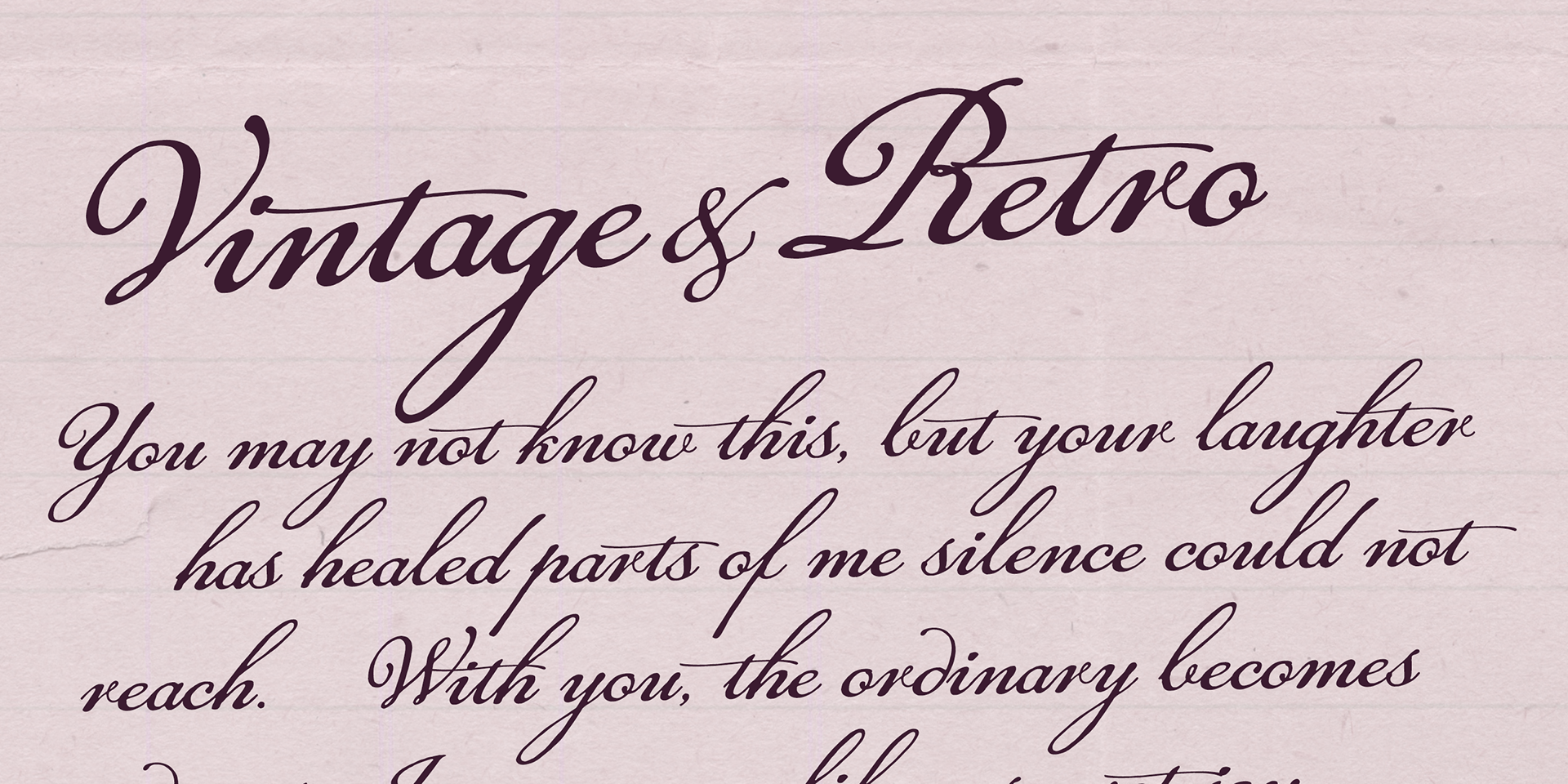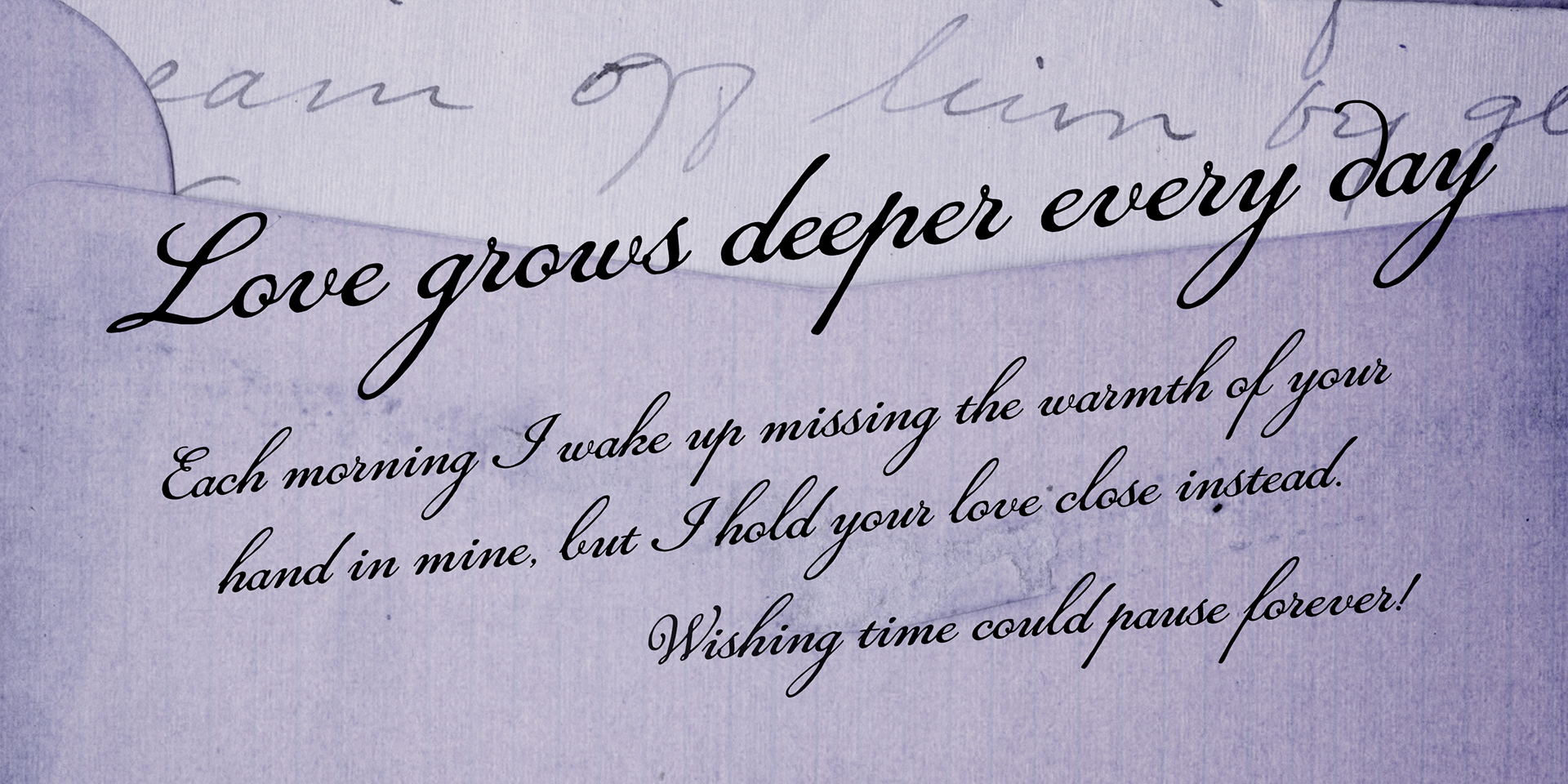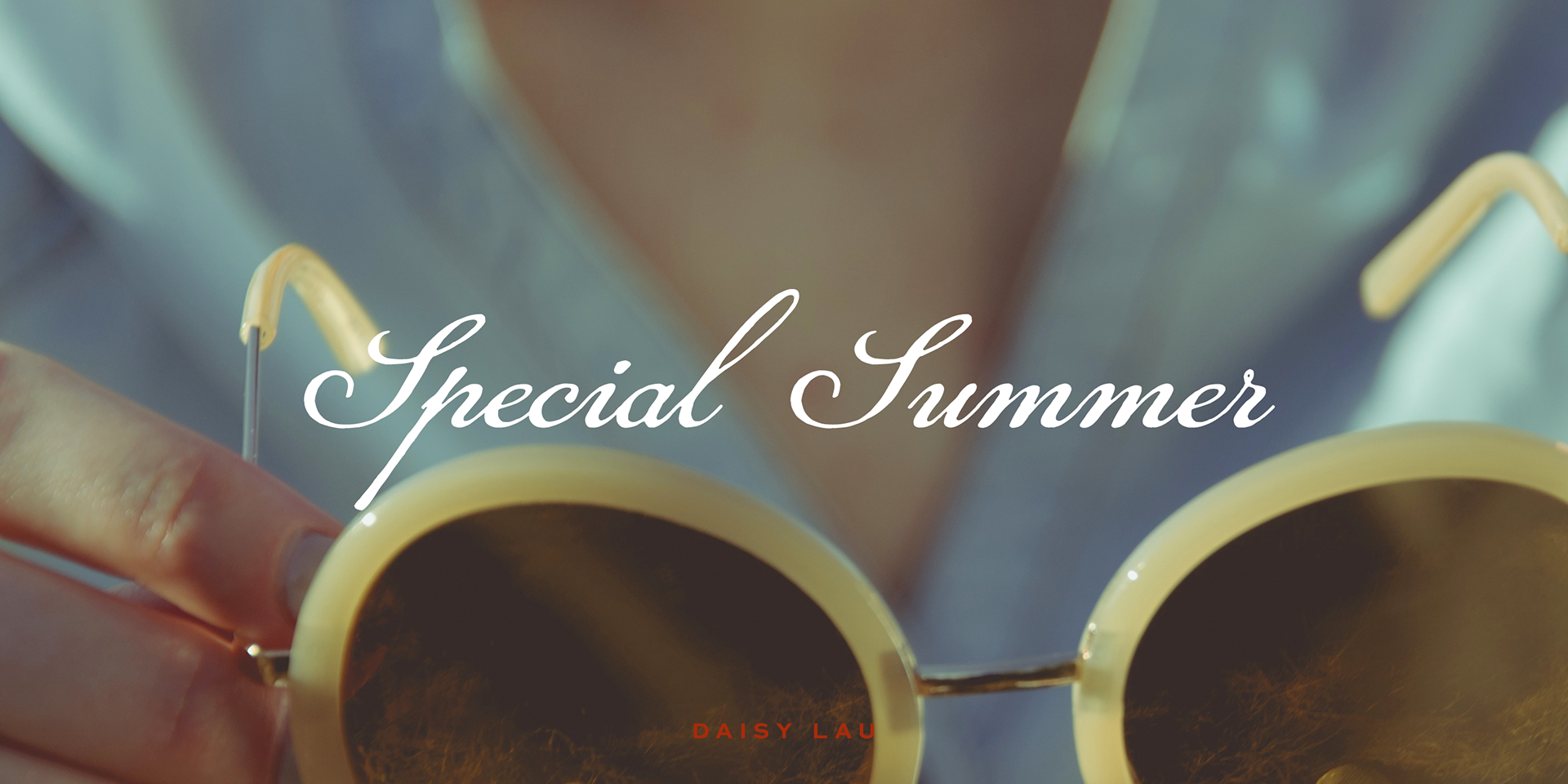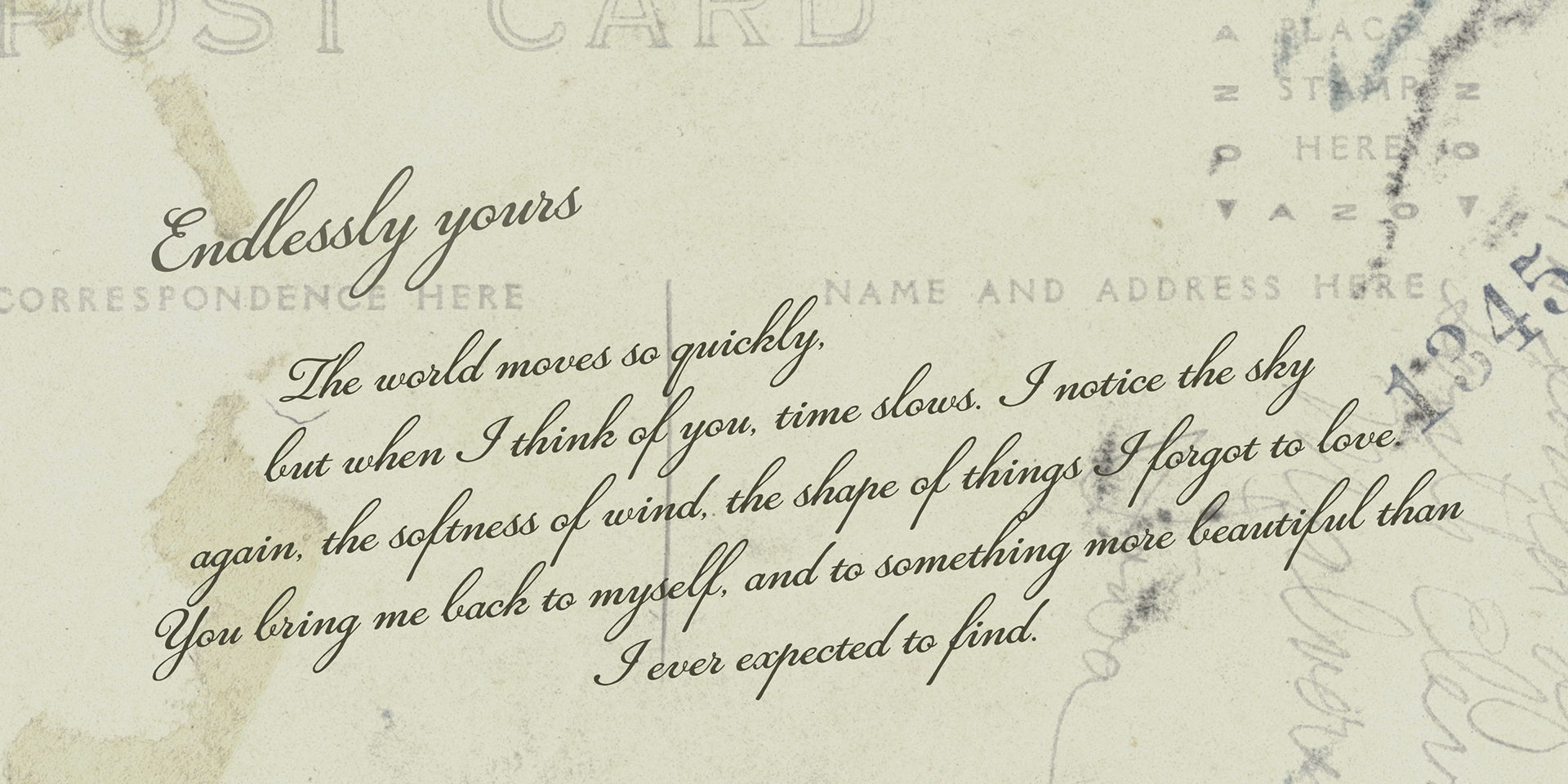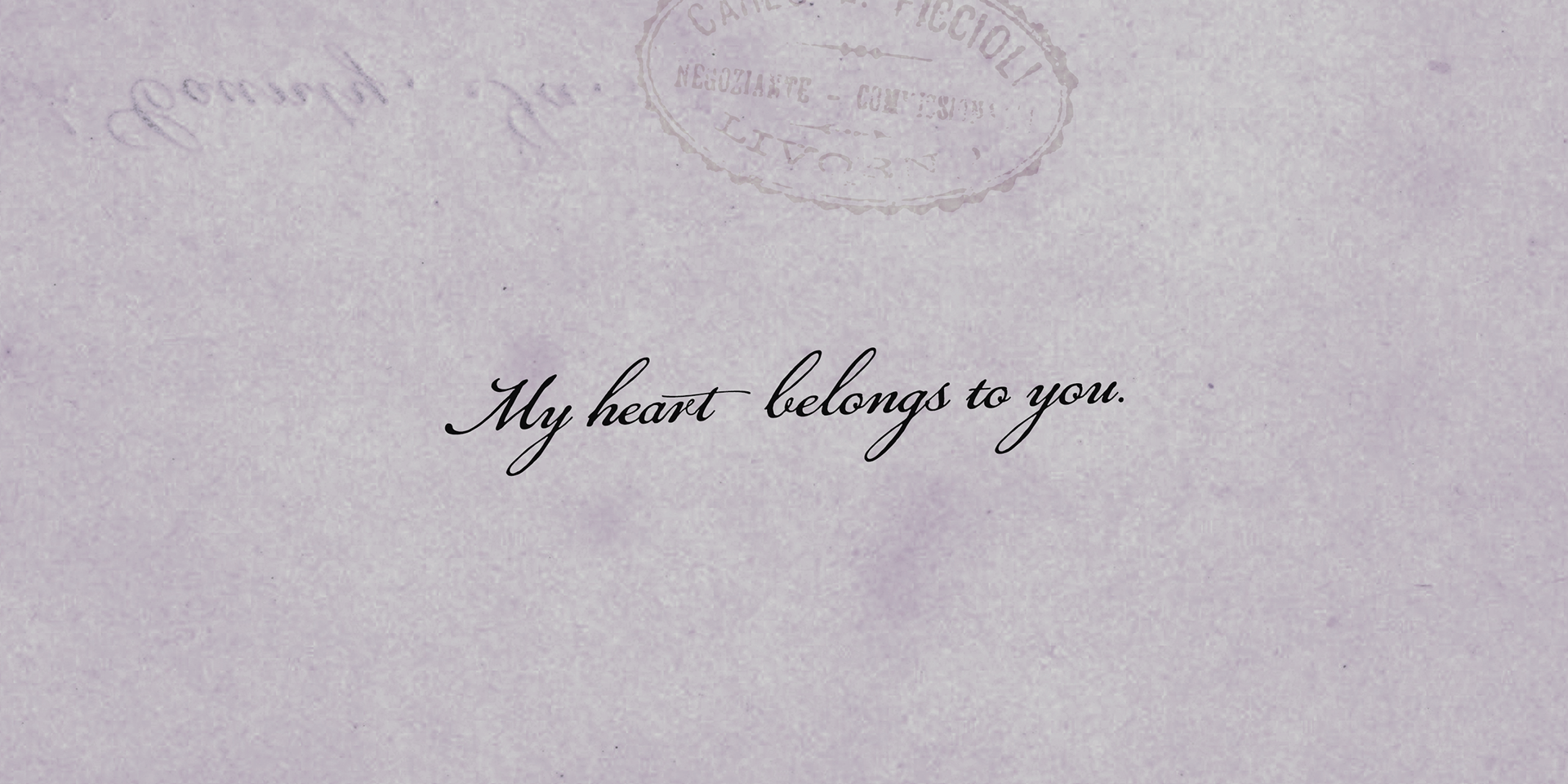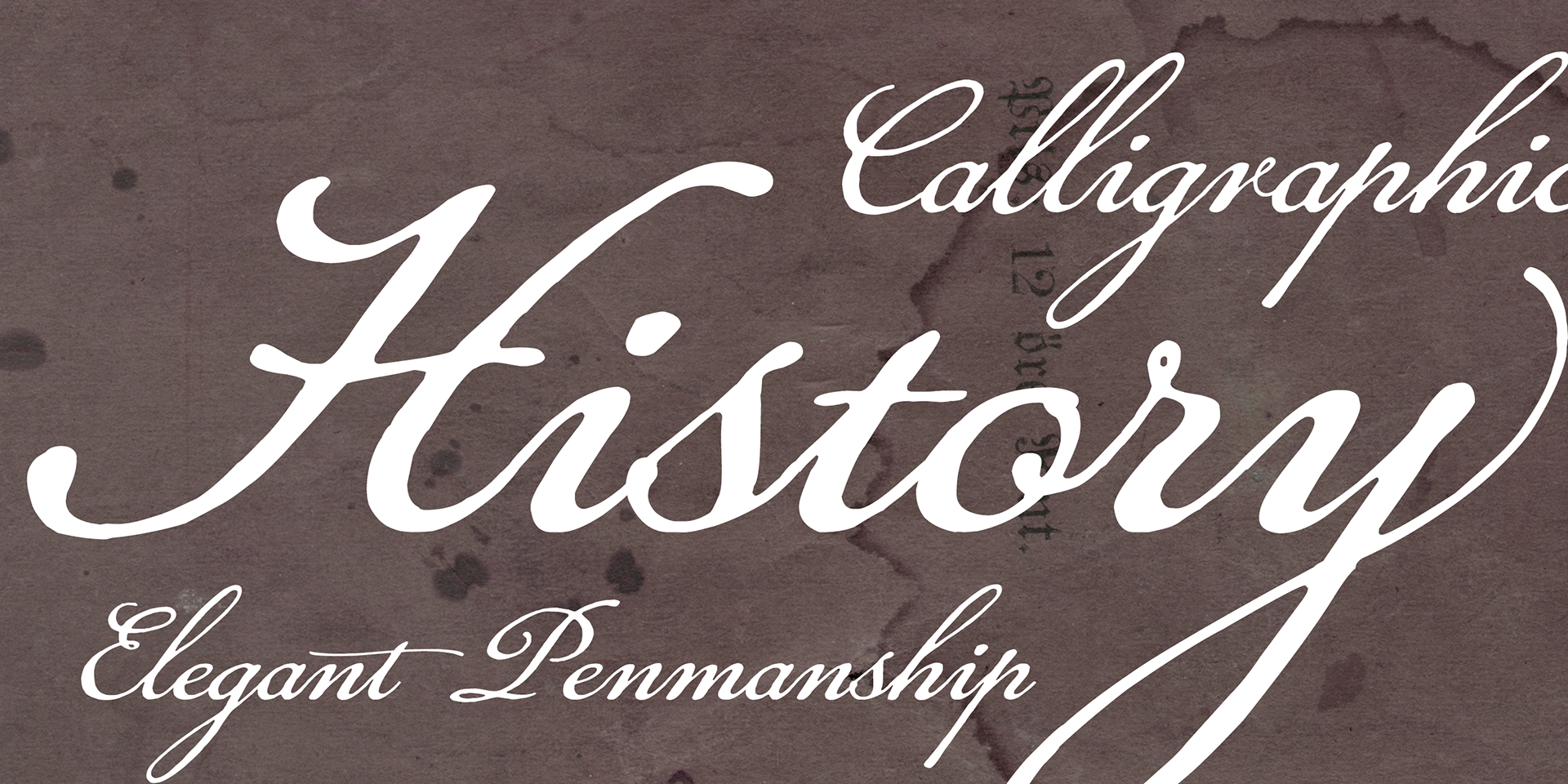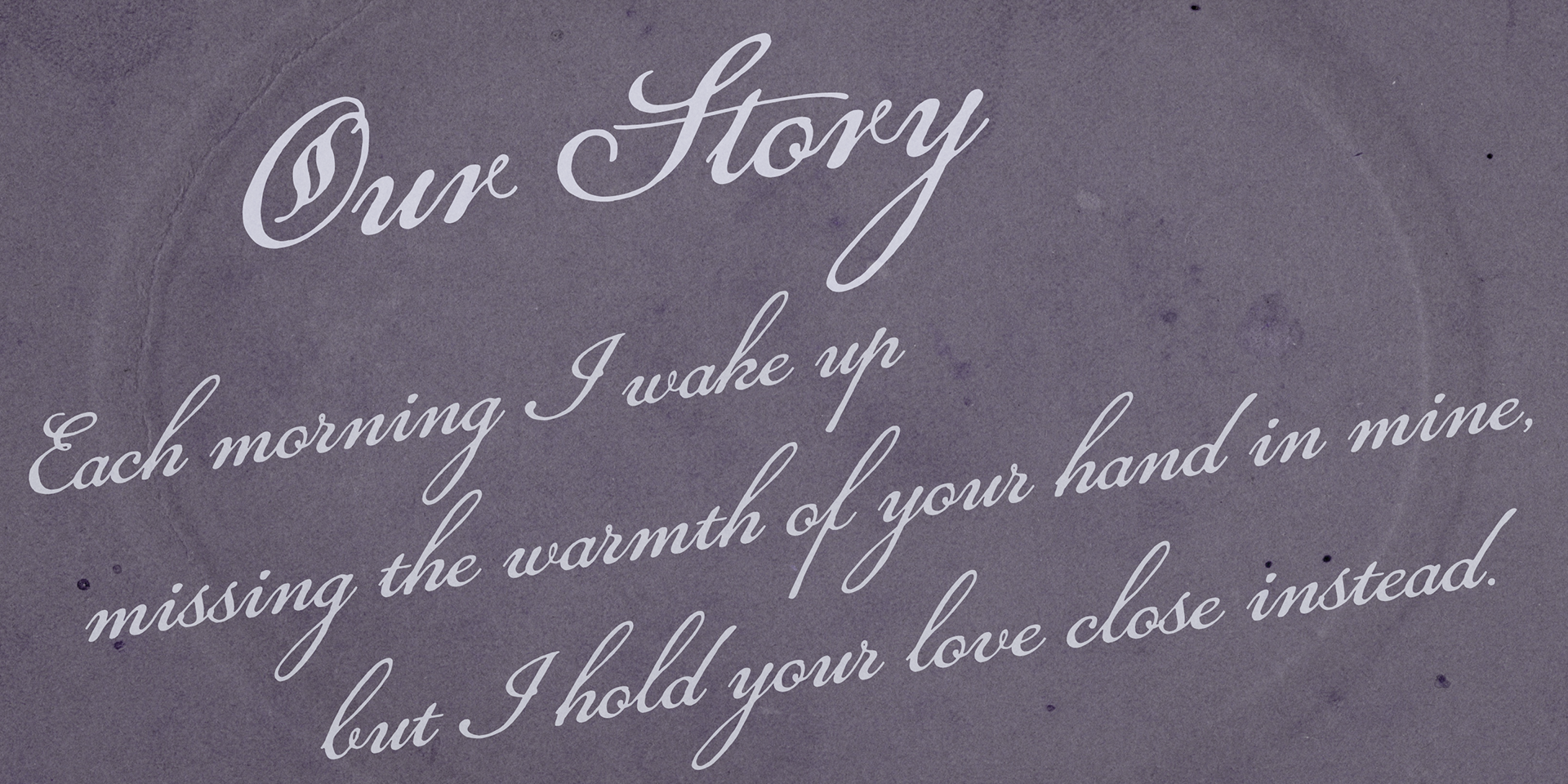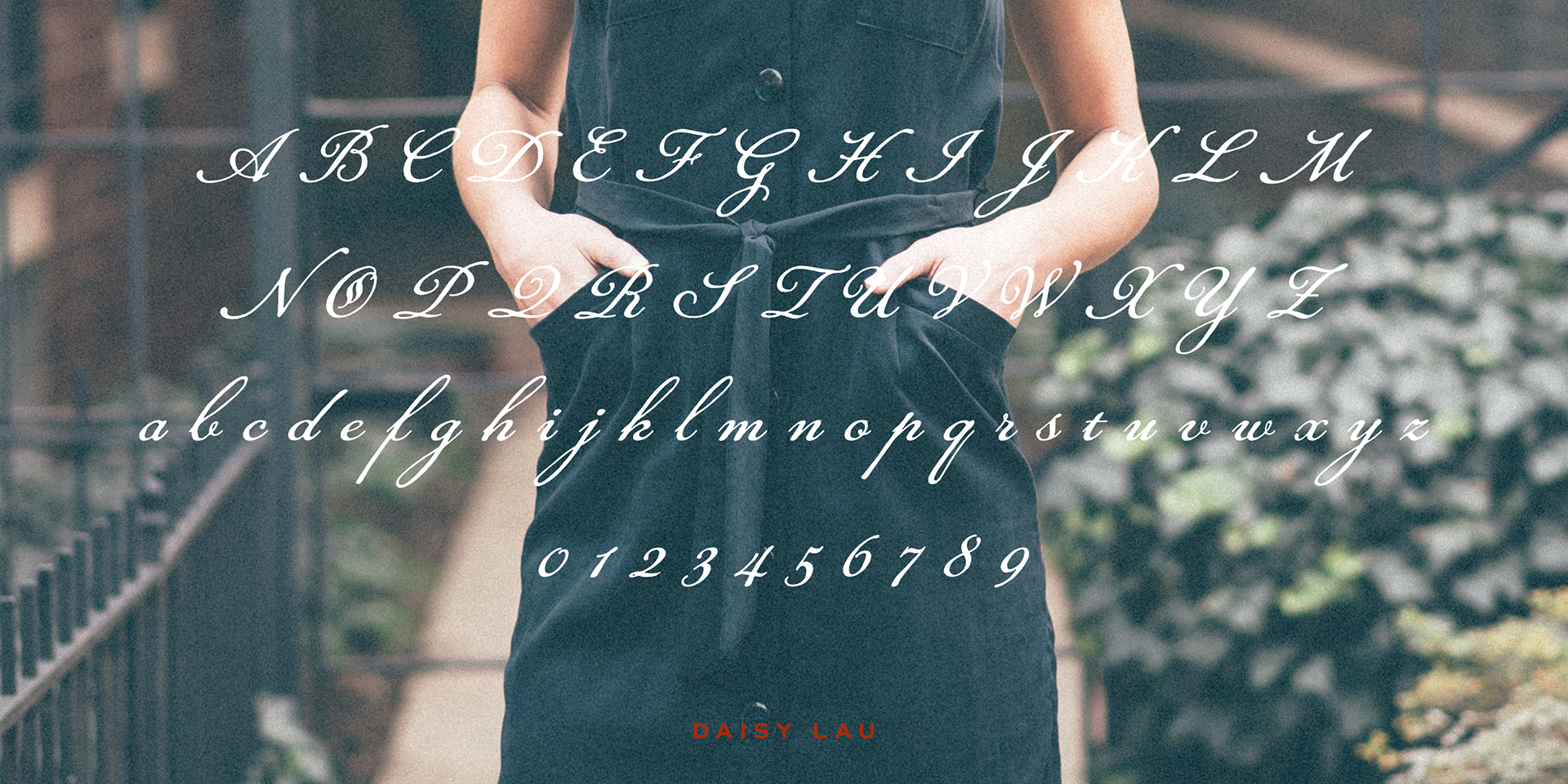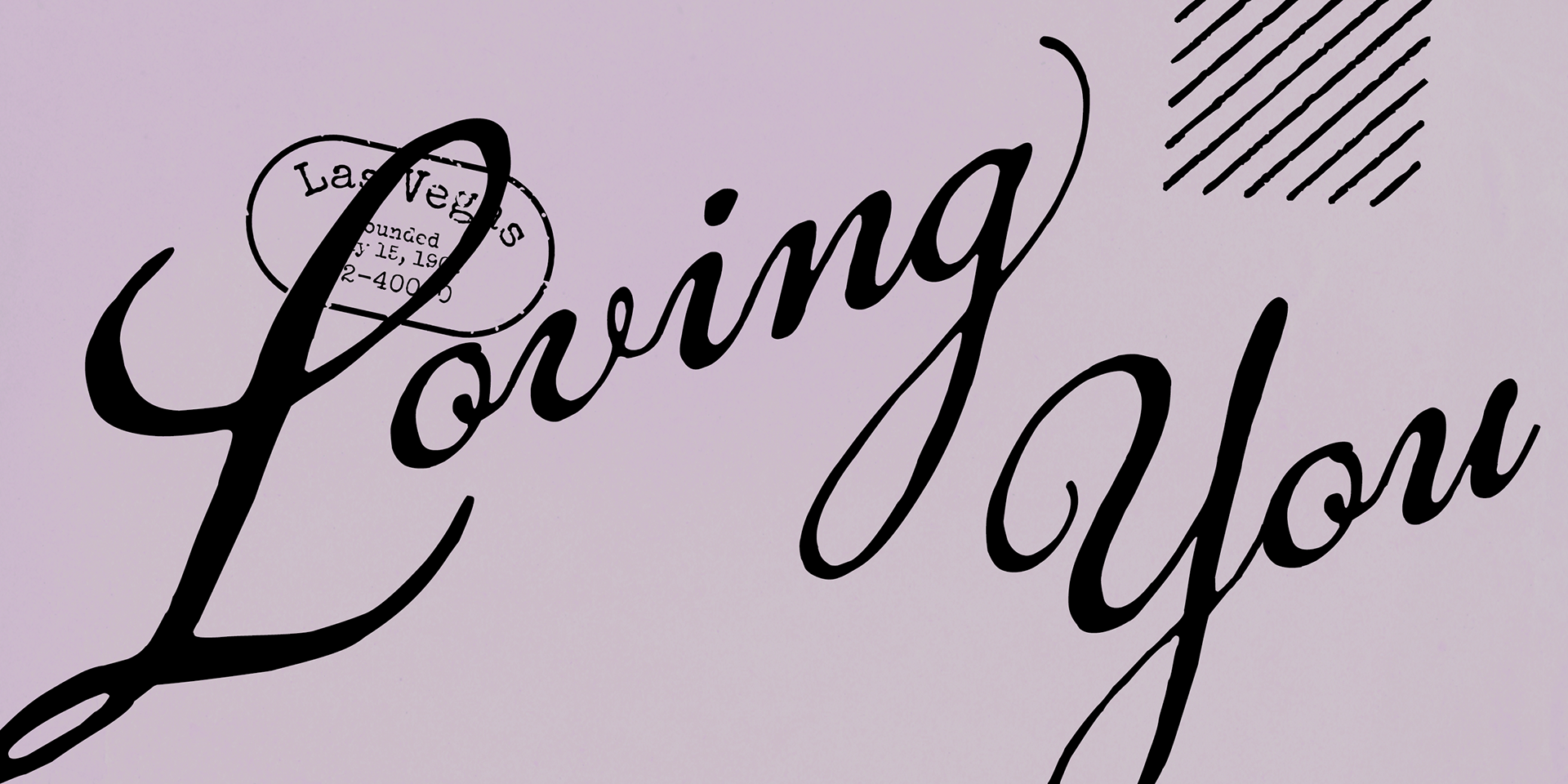
Daisy Lau
Based on 19th-century script styles, this font features an inky texture that gives it the look of authentic handwriting.
Its smooth, flowing strokes evoke a sense of nostalgia and antique charm, perfect for designs with a vintage or historical feel.